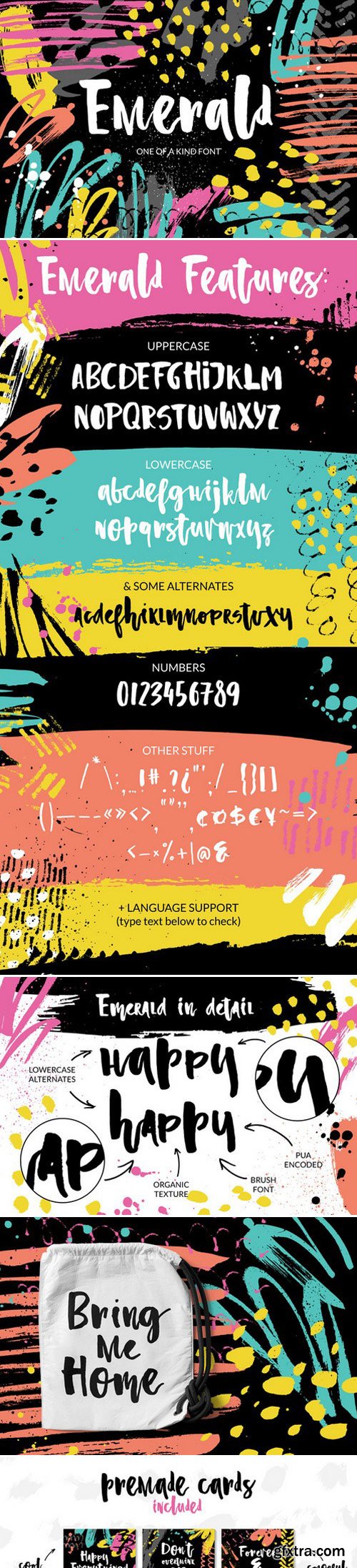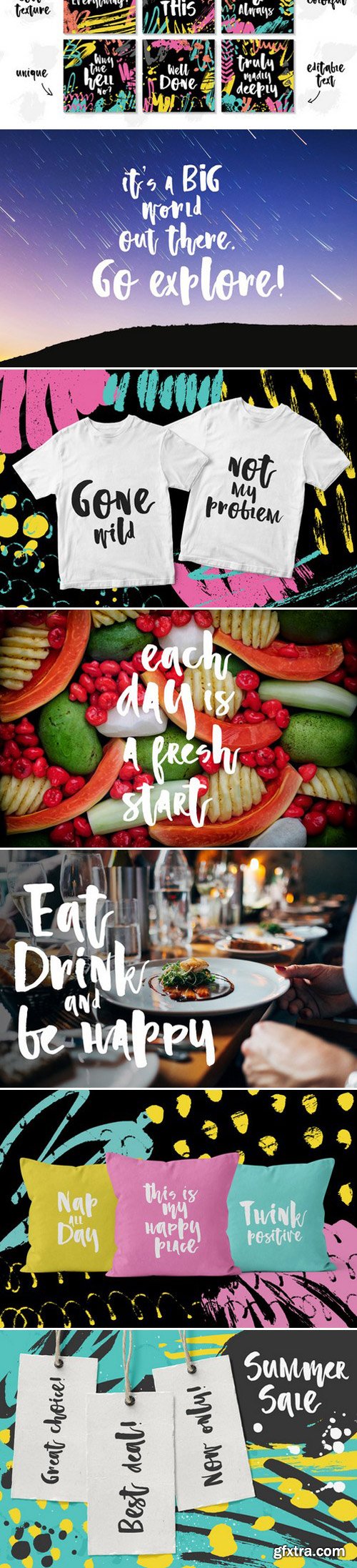
Emerald - playful brush font
Emerald is one of a kind playful brush font. It has dancing baseline, organic texture and some interesting variations of lowercase letters.
Emerald comes with some lowercase alternates and it’s PUA encoded (specially coded fonts) which means that you will be able to access all characters from any application and you don’t need to have Illustrator or Photoshop to access all extra characters. Instruction of how to use PUA glyphs is included (it’s super-easy and you don’t need any special programs)